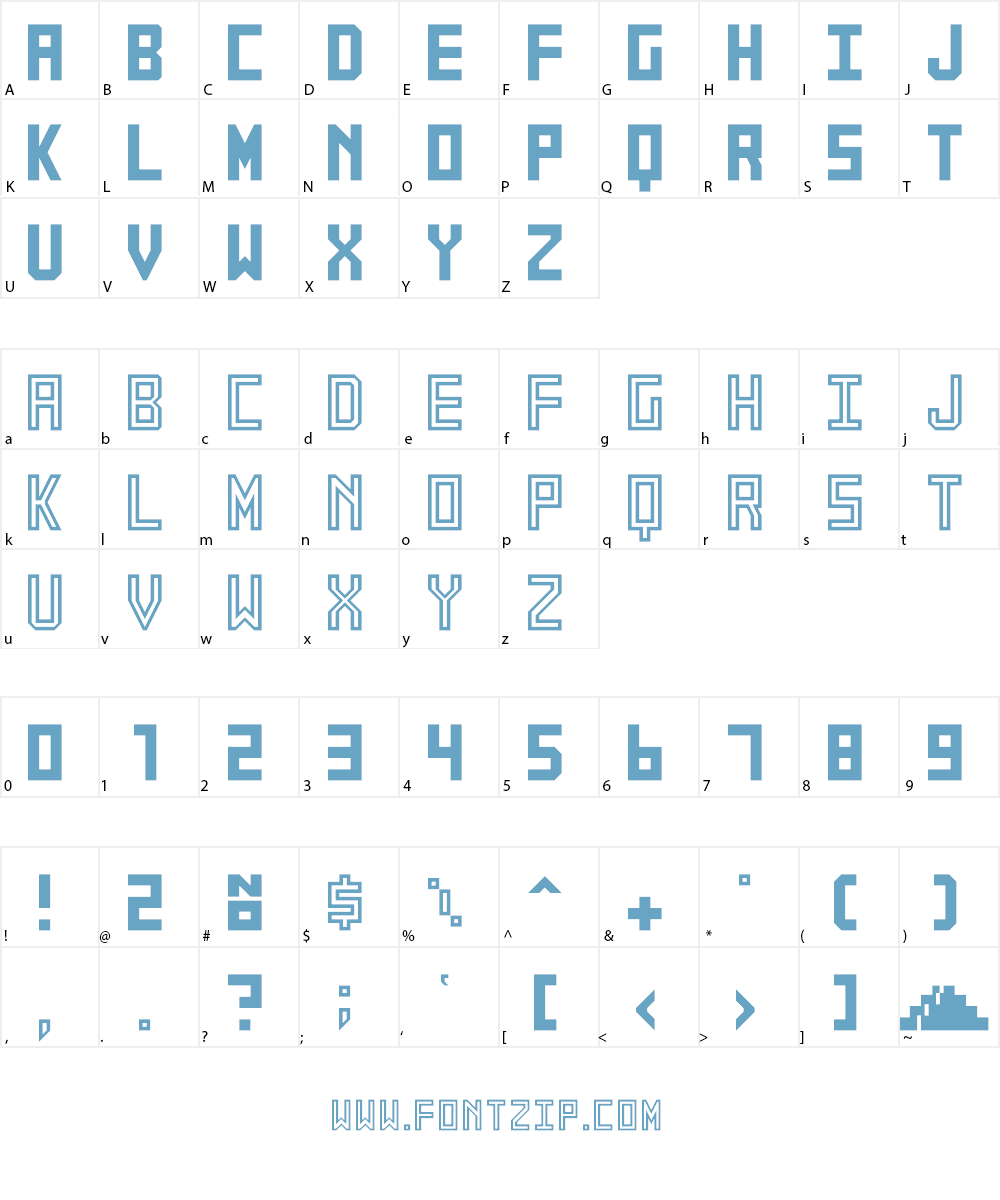
Another DEVOlved font. This one is based on the logotype from the Hardcore Devo albums. Uppercases are solid, lowercases are outlines. Alternate outlined numbers in the extended Latin charset.
-Fixed diagonal strokes on a few characters with slants (R,V,M, etc)
PUBLIC SIGHTINGS:
-Natural History Museum Devo Event teeshirt
"They asked me to use a 'funky' font on the shirt. I couldn't think of anything funkier than the Harcore DEVO font!"
--Michael Pilmer (DEVO-OBSESSO)